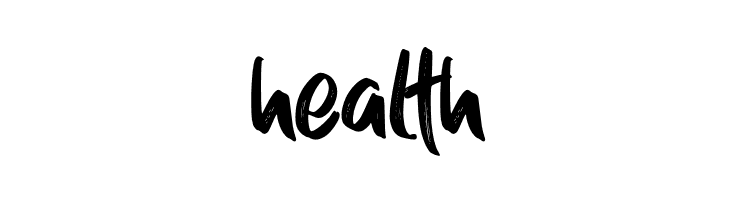
An elegant, flowing script font with high contrast and artistic flair.
A bold, decorative font with a gothic and medieval style.
A bold, decorative font with a 3D shadow effect, ideal for impactful headlines.
A whimsical, antler-adorned font ideal for festive designs.
A playful, handwritten font with a whimsical and dynamic style.
A flowing, cursive font with elegant loops and a classic calligraphy style.
A sleek, elegant italic font with thin, elongated characters and a modern aesthetic.
A bold, 3D italic font with a futuristic and dynamic style.
A bold, condensed font with a dynamic slant and tight spacing.
An artistic, calligraphic font with elegant curves and decorative elements.